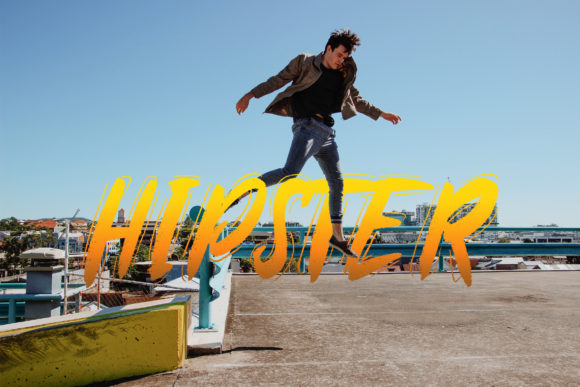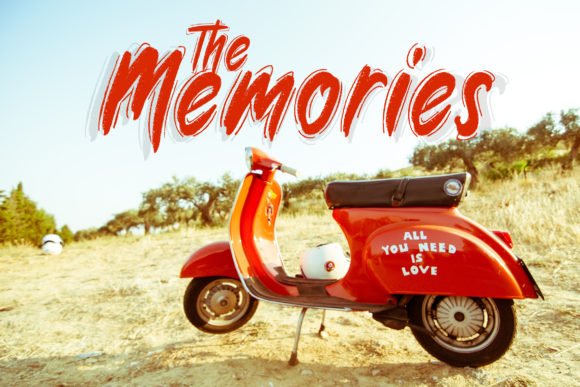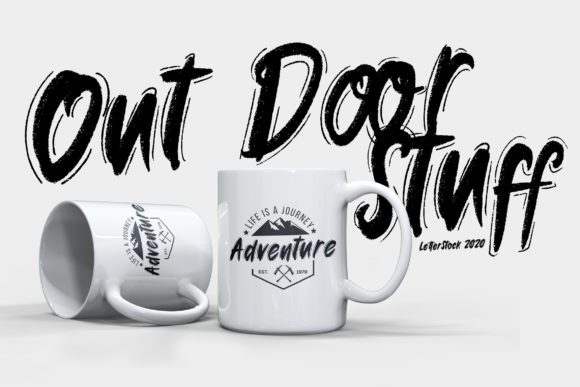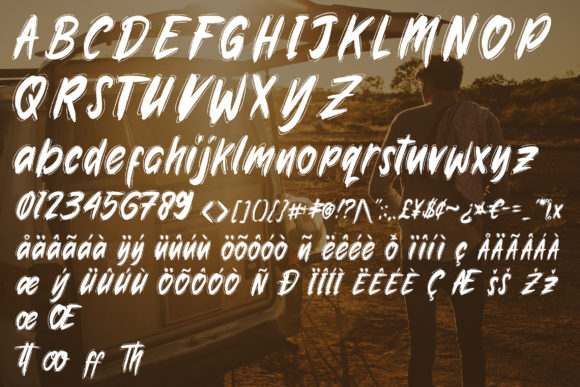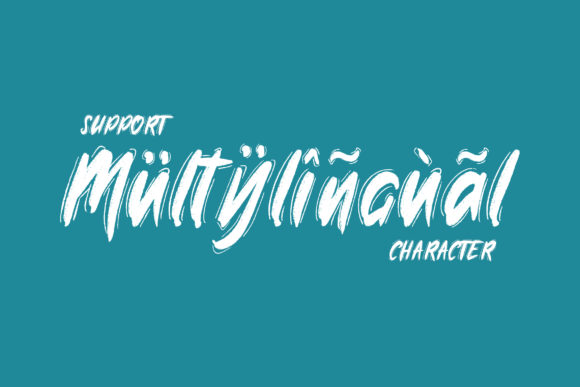
Rawkin Pickles Font – Free Download
Introduction to Rawkin Pickles Font
Rawkin Pickles is an edgy script font with a unique style.
Fall in love with its one-of-a-kind look & feel .
Key Features of Rawkin Pickles Font
Why Choose Rawkin Pickles Font?
Rawkin Pickles Font offers exceptional quality and versatility, making it a valuable addition to your design toolkit. Whether you’re creating for personal projects or commercial use, Rawkin Pickles Font delivers professional results.